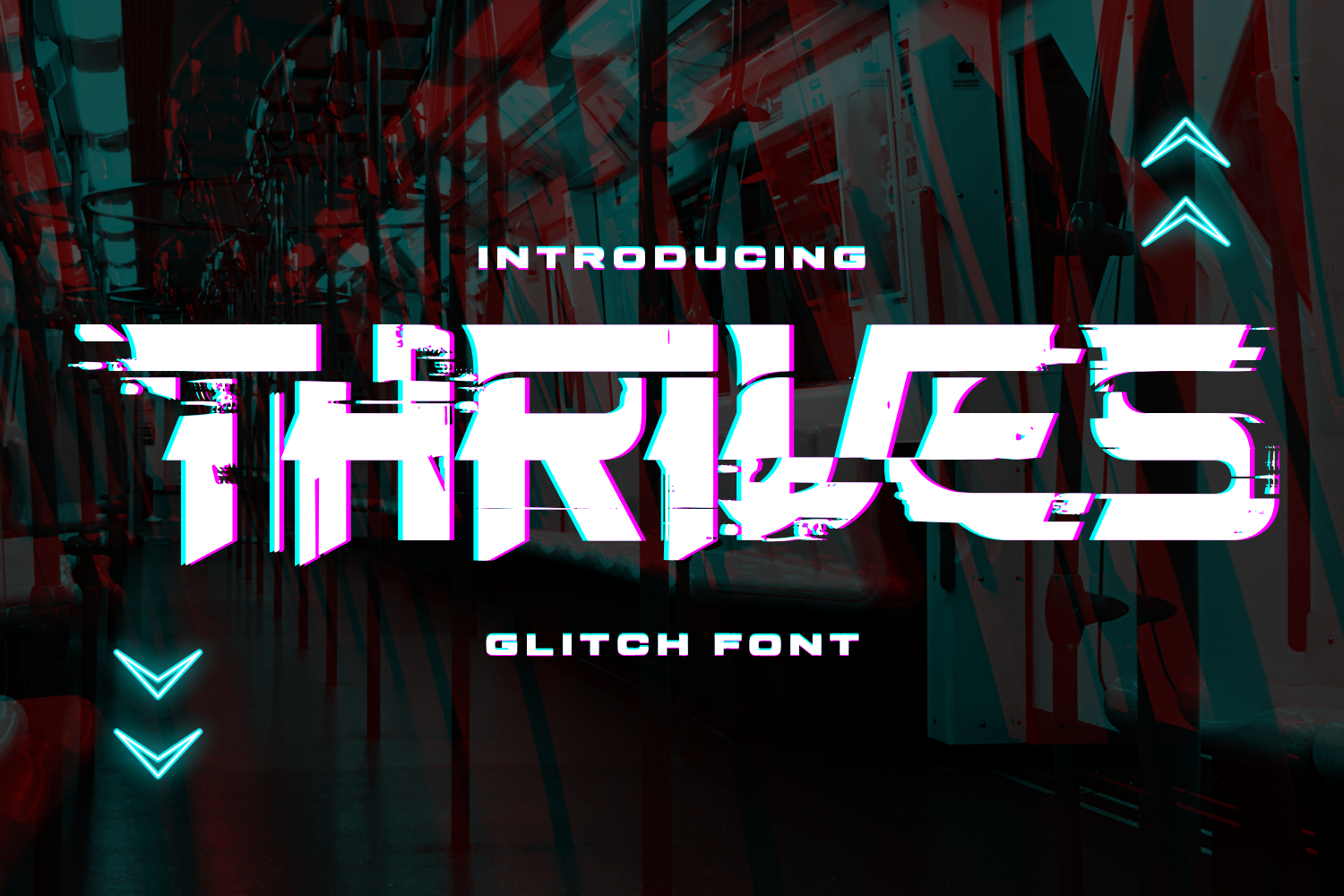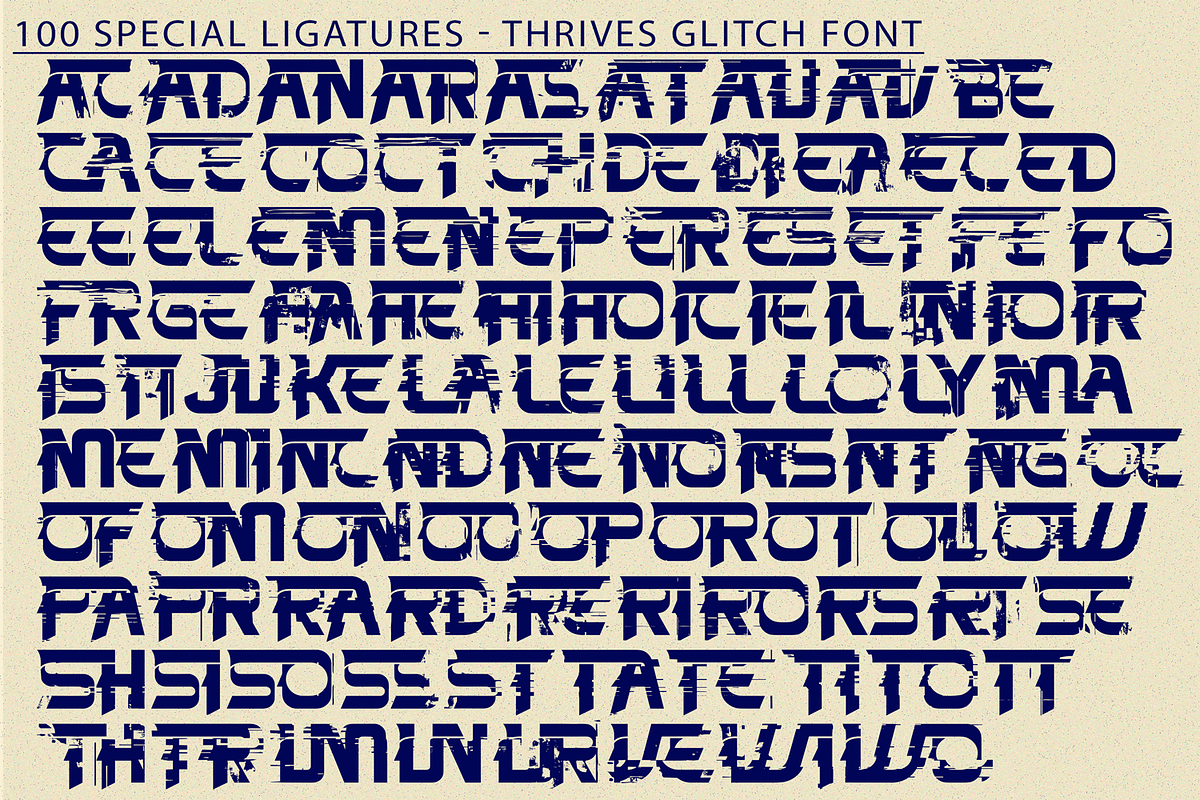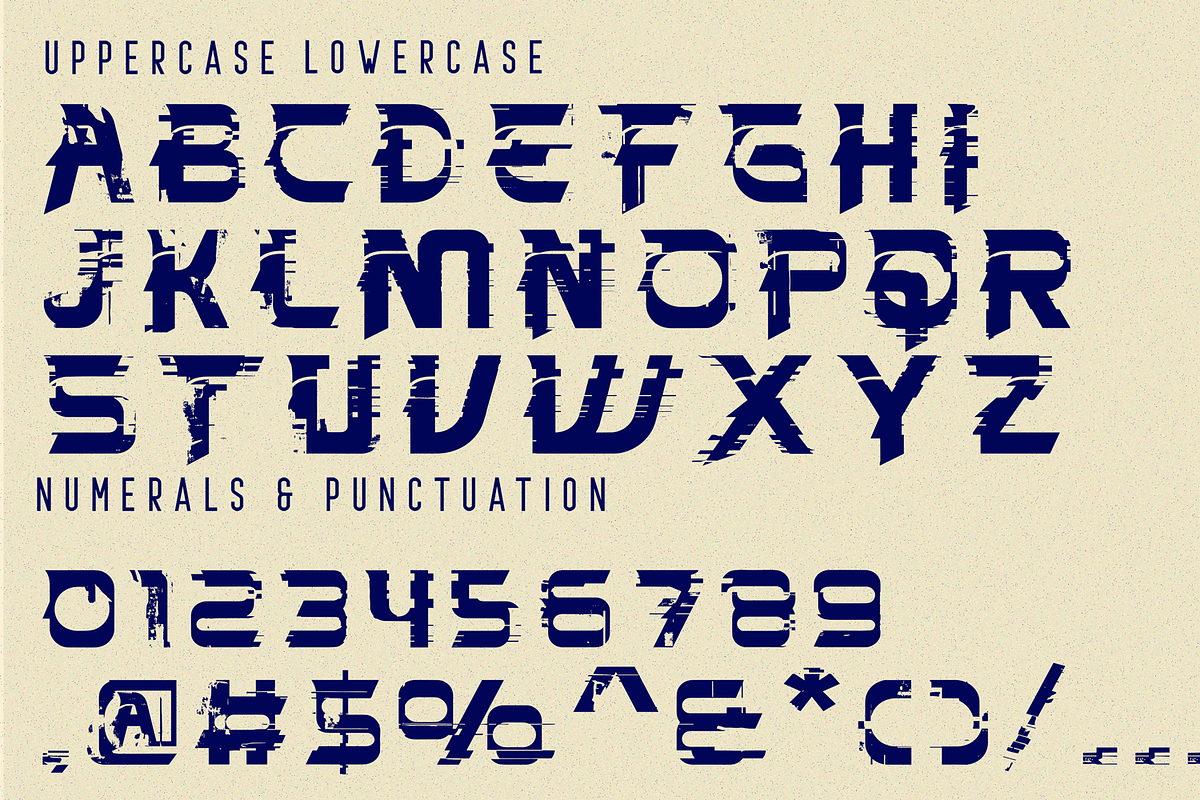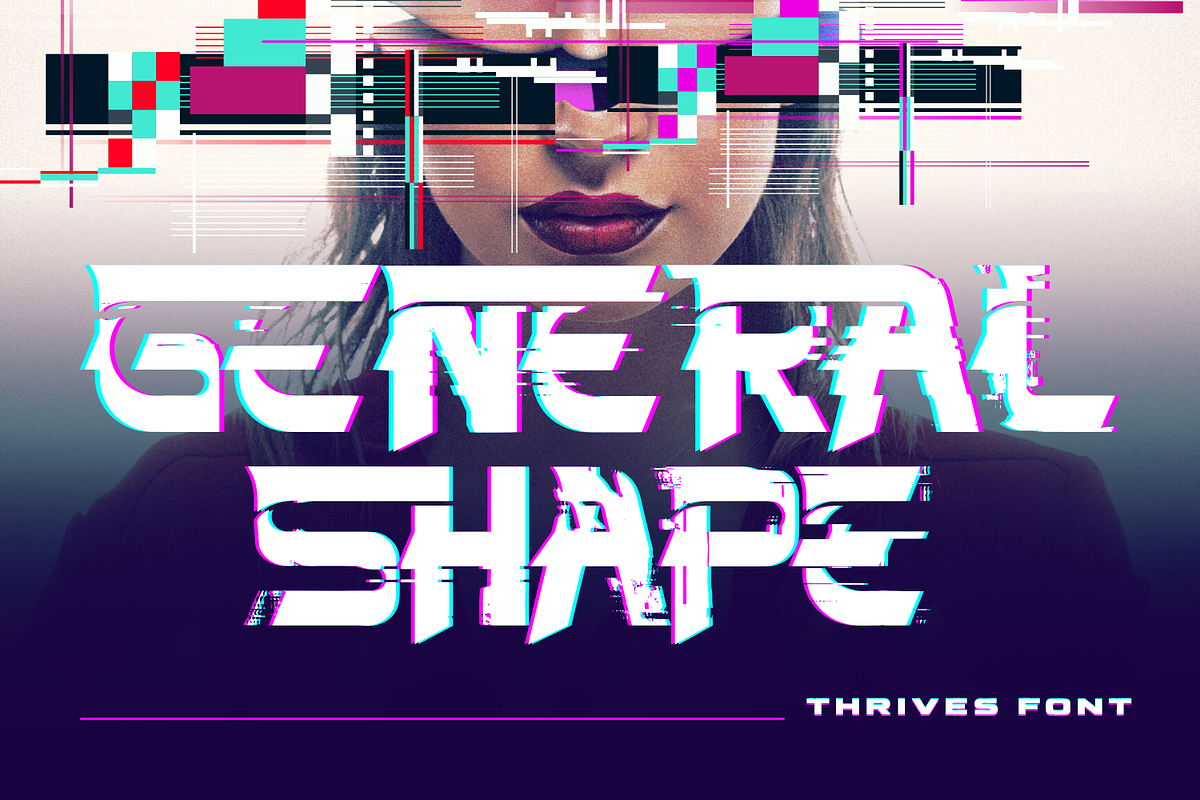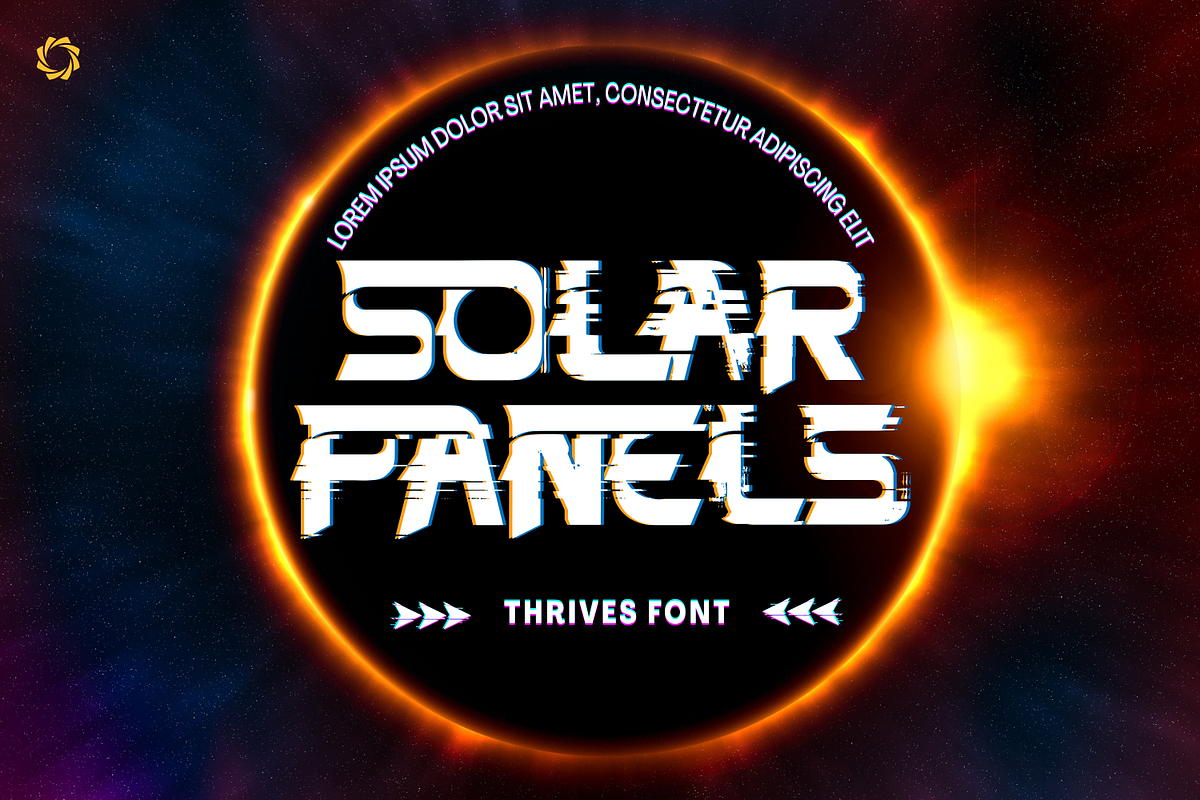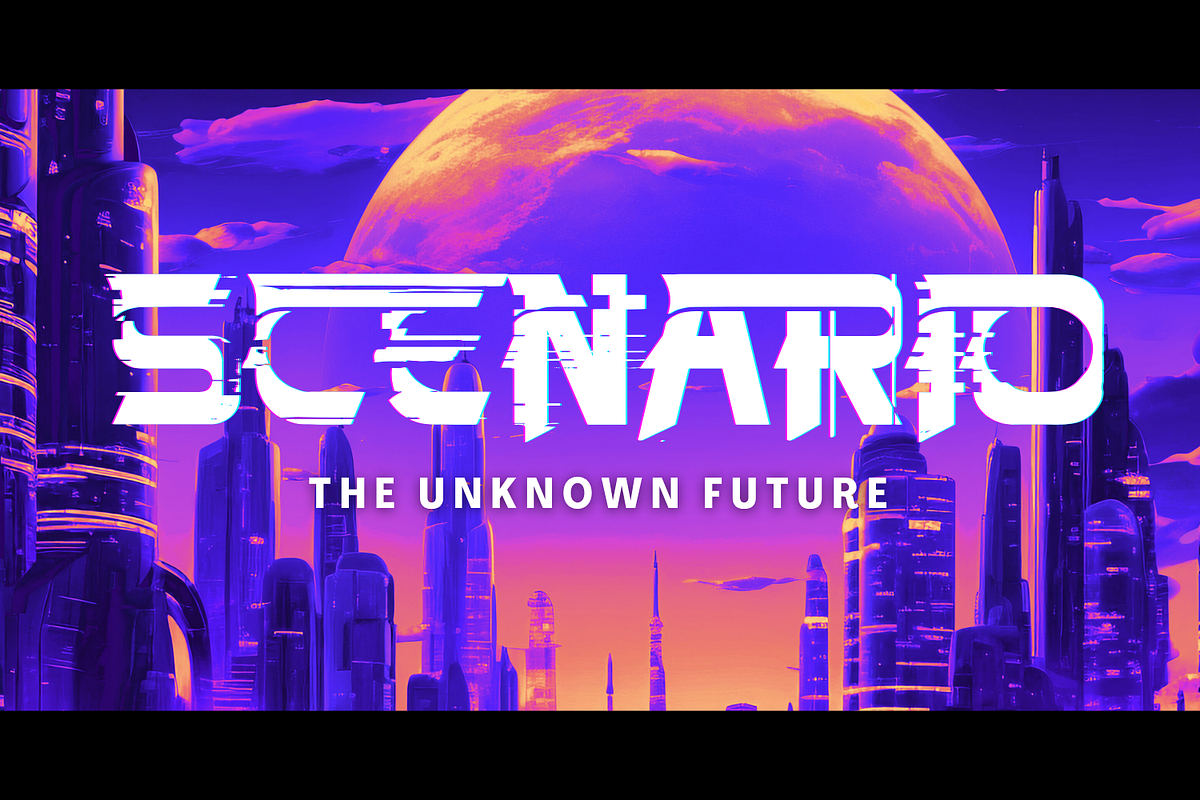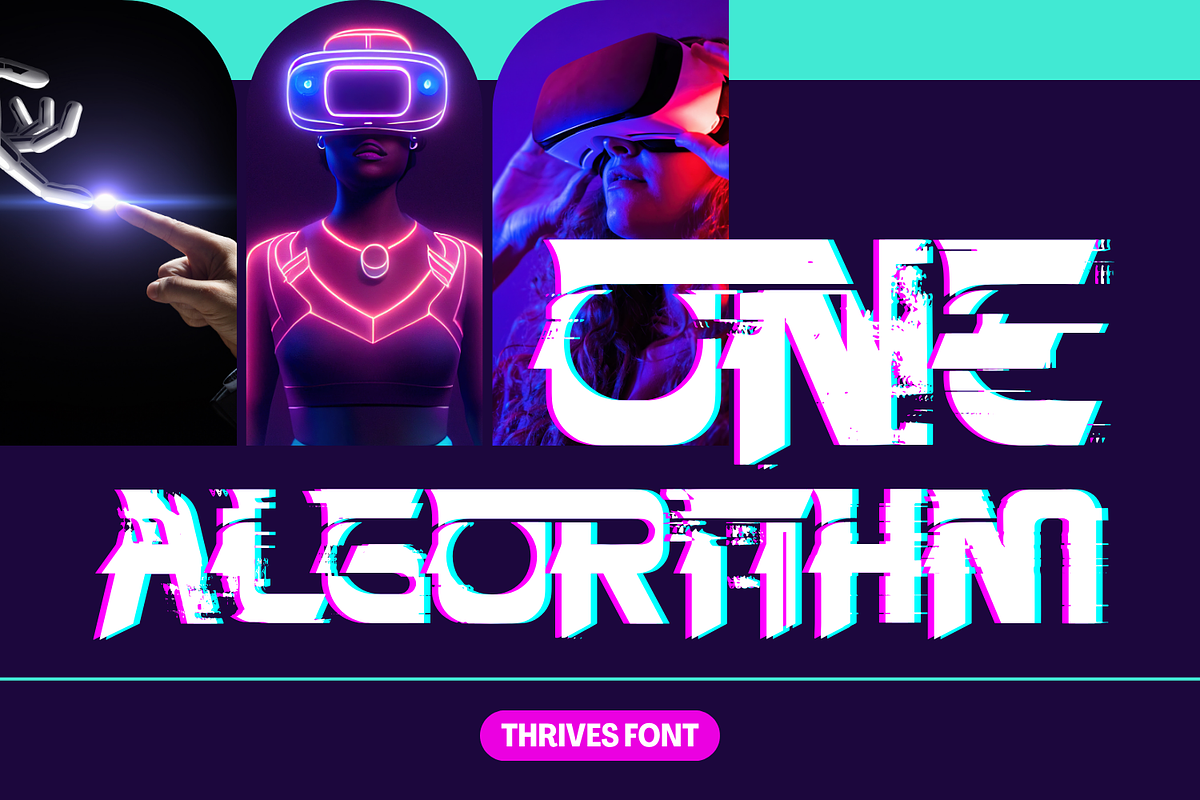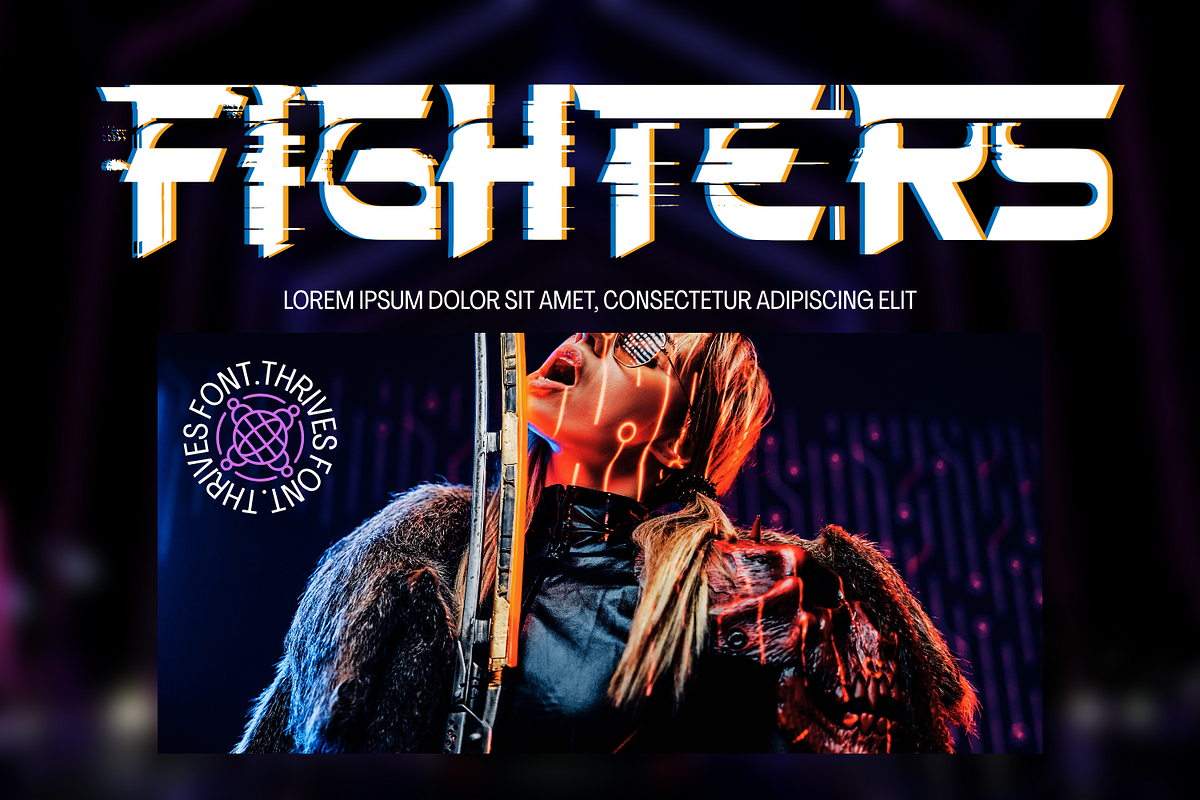
Thrives Glitch - Futuristic Font
Thrives Glitch - Futuristic Font – Futuristic Glitch Display Font, a bold and futuristic glitch typeface designed for the cyber age. Featuring sharp angles, pixel disruptions, and high-tech fragmentation, this font mimics the visual chaos of screen glitches and digital errors — perfect for projects that demand energy, edge, and digital aesthetics. Whether you're designing for sci-fi titles, game interfaces, EDM posters, or cyberpunk visuals, Thrives Glitch delivers a broken-yet-beautiful aesthetic that turns noise into design.
🧩 Font Features:
- Uppercase Letters
- 100+ Special Ligatures for glitchy variation
- Multilingual Support with Accented Characters
🧩 About 100 ligatures combined with Stylistic Alternates Font:
AC AD AL AN AR AS AT AU AV BE CA CE CH CO CT DE DI EA EC ED EE EL EM EN EP ER ES ET FE FO FR GE HA HE HI HO IE IC IL IN IO IR IS IT JU KE LA LE LI LL LO LY MA ME MI NC ND NE NG NO NT NS OC OF OM ON OO OP OR OT OU OW PA PR RA RD RE RI RO RS RT SE SH SI SO SS ST TA TE TH TI TO TR TT UM UN UR VE WI WO